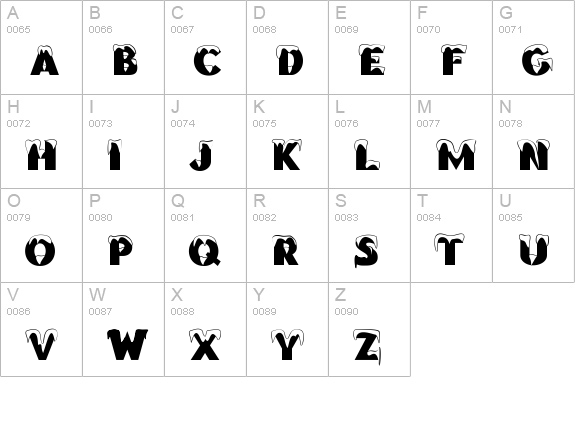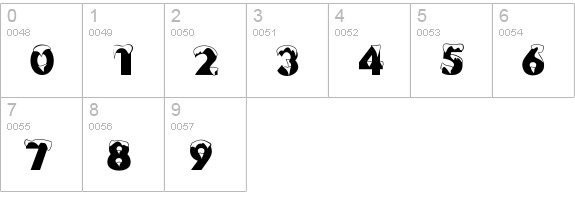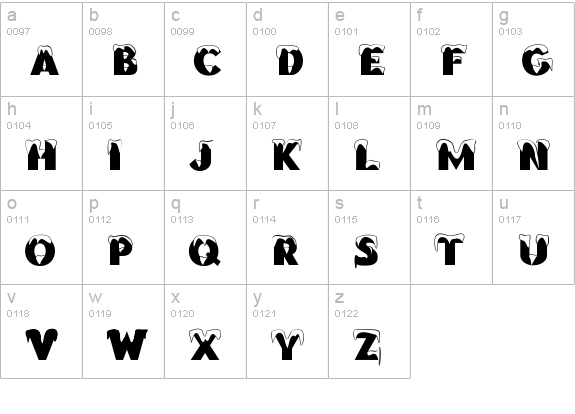
Himalaya Font Details
The Himalaya font is a stunning and elegant typeface that exudes a sense of timeless beauty and sophistication. With its intricate details and flowing curves, this font is perfect for adding a touch of luxury to your projects. Whether you're designing a wedding invitation, a logo for a high-end brand, or a stylish poster, the Himalaya font is sure to make a lasting impression. What makes the Himalaya font even more special is that it is available for free download at FontsMarket.com. This means that you can easily access this exquisite font without any cost, making it a fantastic choice for designers on a budget or anyone looking to elevate their designs with a touch of class. Don't miss out on the opportunity to enhance your projects with the Himalaya font - download it today and let your creativity soar!